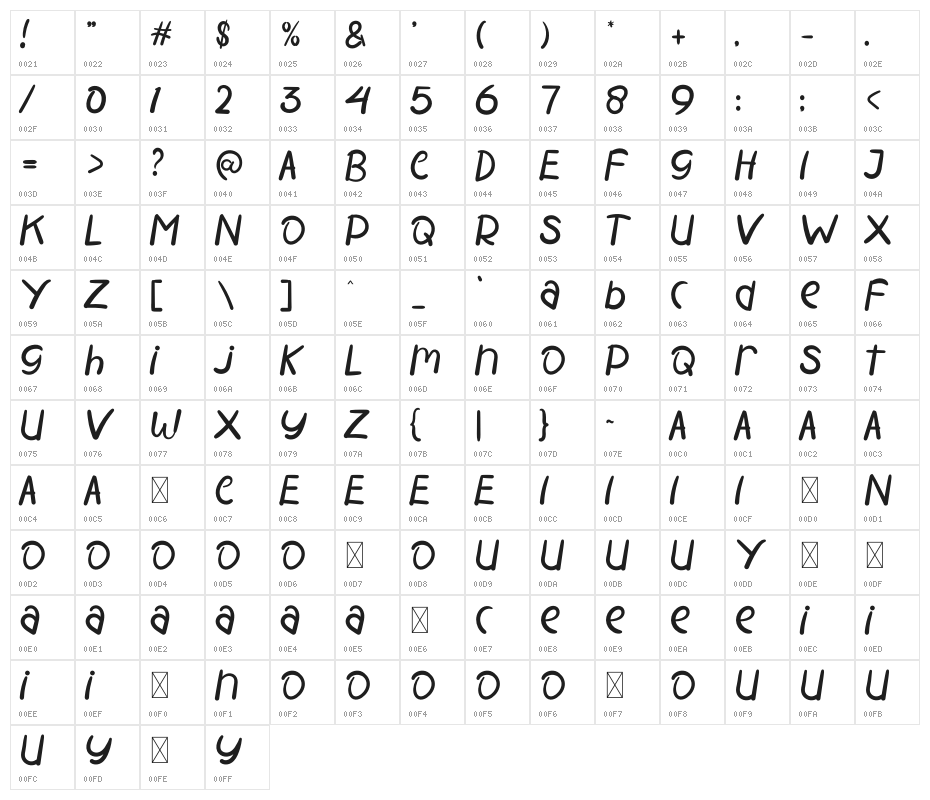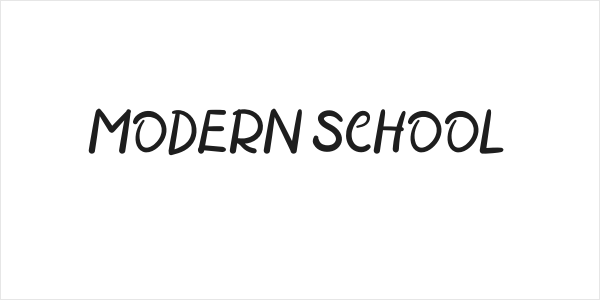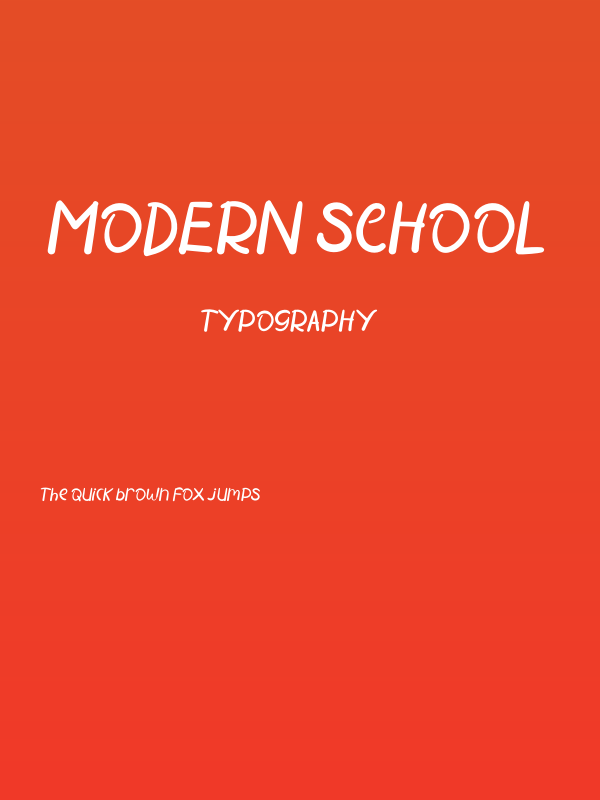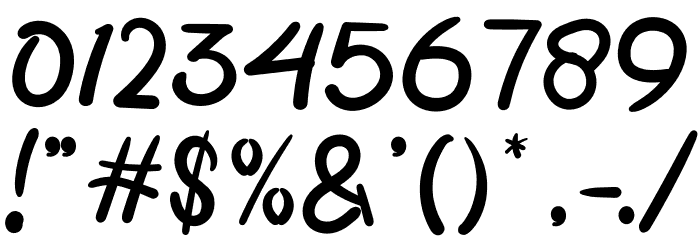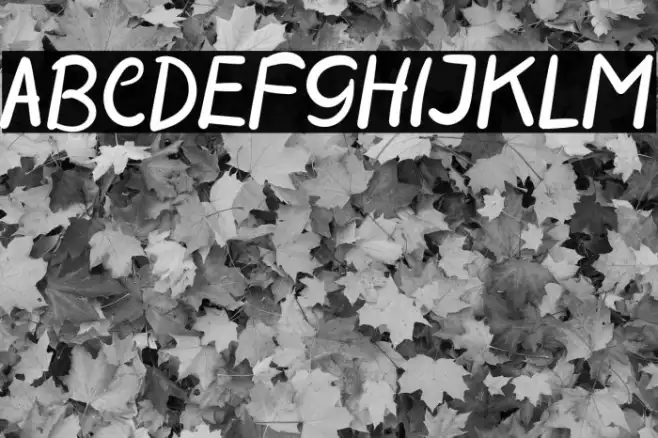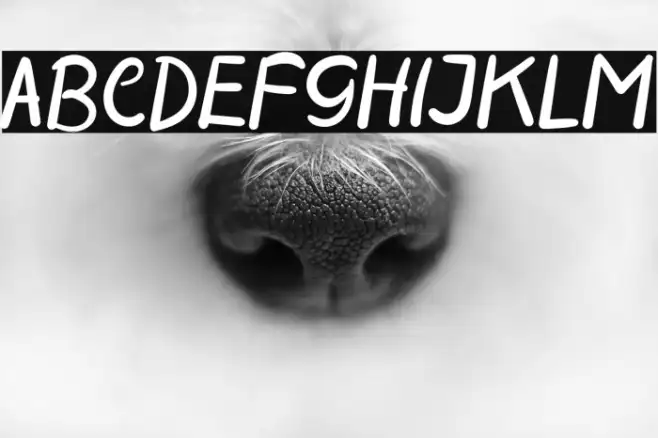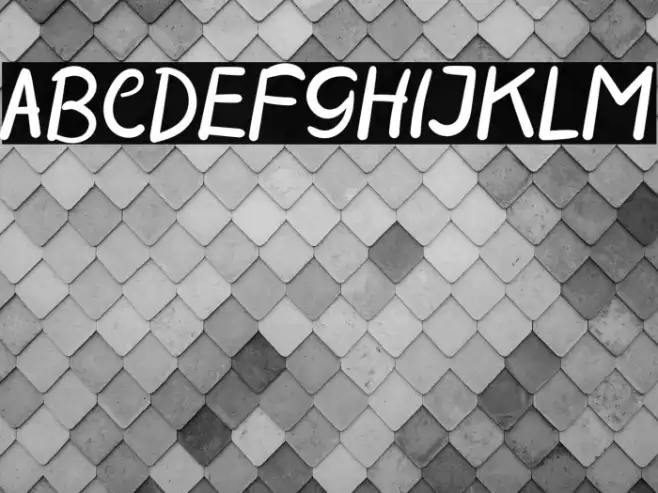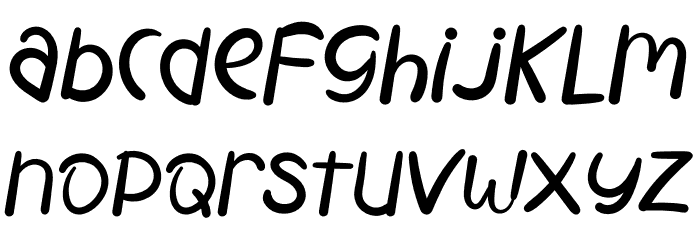
MODERN SCHOOL Font
MODERN SCHOOL Description
This font features a playful and casual handwritten style, characterized by its smooth, flowing curves and slightly irregular shapes. The letters are bold and rounded, giving them a friendly and approachable appearance. The uppercase and lowercase letters maintain a consistent style, with a slight slant that adds to the informal feel. The numerals and special characters are designed to match the overall aesthetic, ensuring a cohesive look across all text. This font's unique charm makes it suitable for projects that require a personal touch or a sense of whimsy.